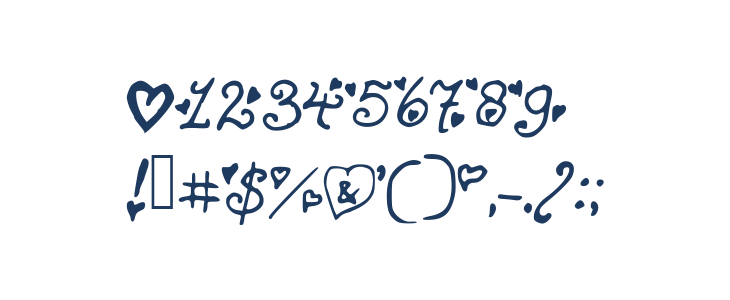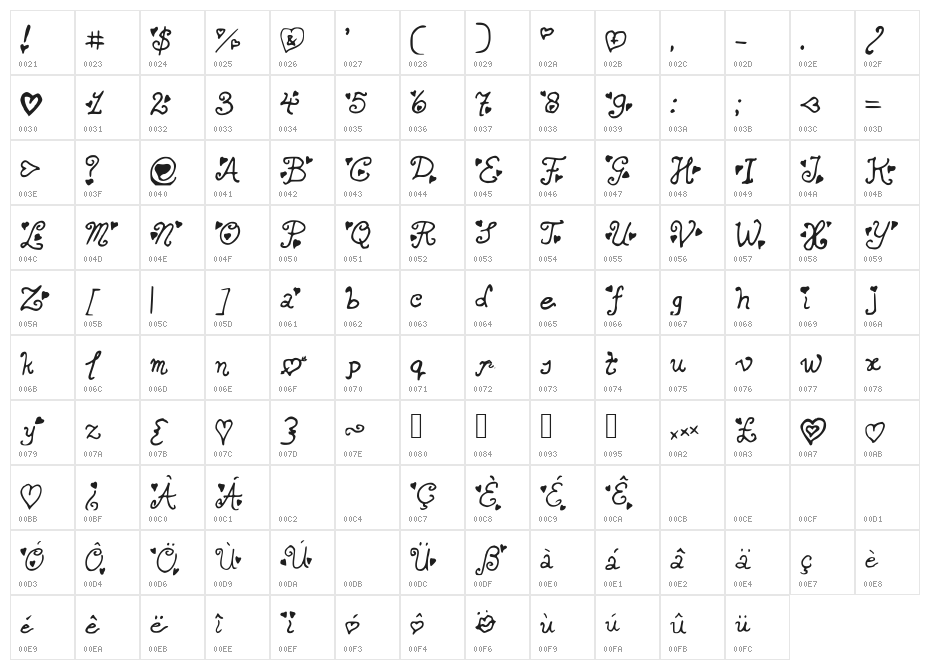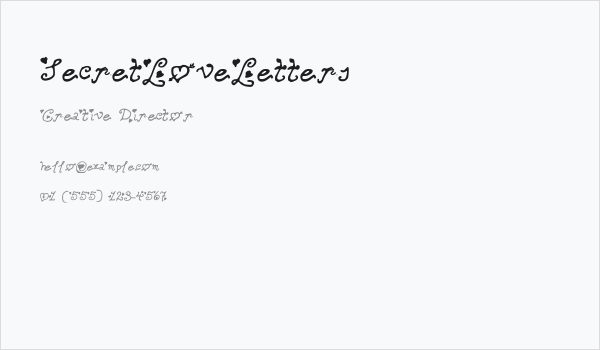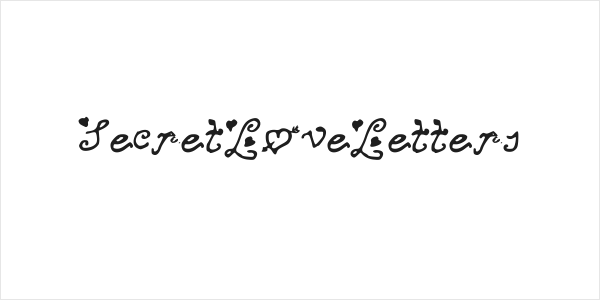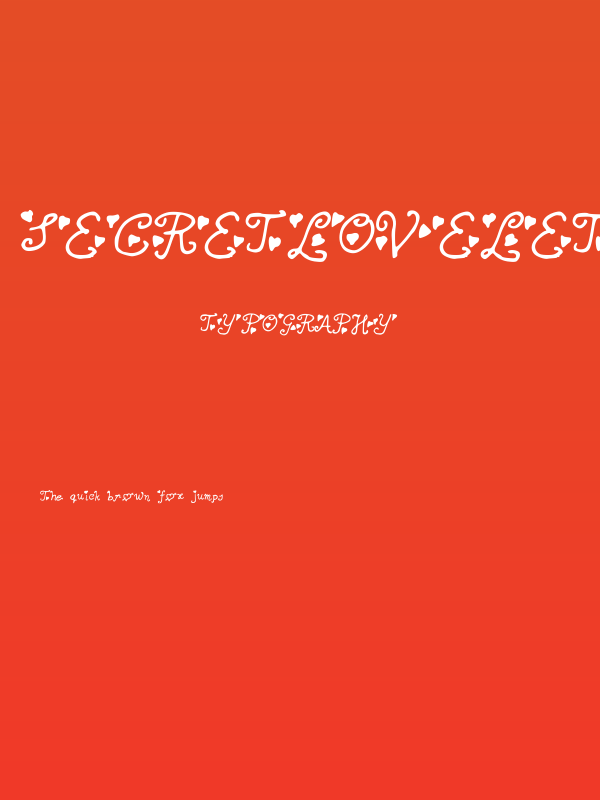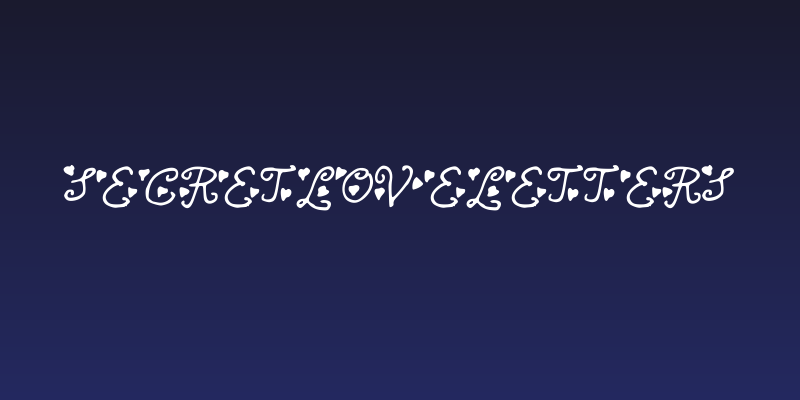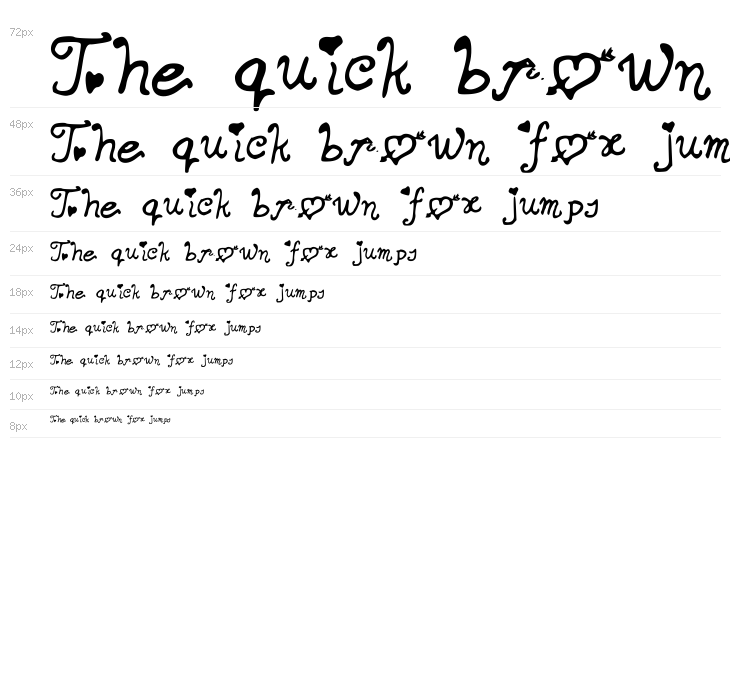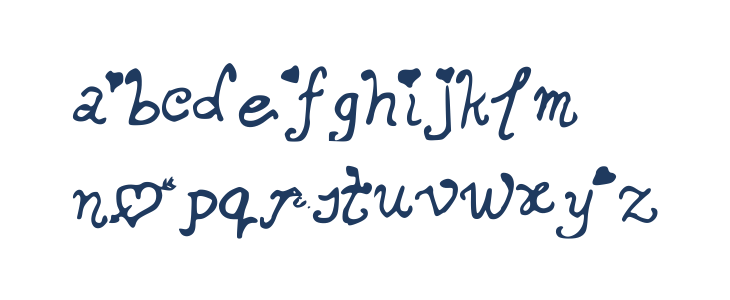
SecretLoveLetters Font
SecretLoveLetters Description
This whimsical and romantic font features playful heart motifs integrated into each character, creating a charming and affectionate appearance. The letters are crafted with a handwritten style, giving them a personal and intimate feel. The uppercase letters are bold and decorative, with hearts adorning the ends of strokes, while the lowercase letters maintain a more fluid and cursive form. Numbers and special characters continue the theme, incorporating hearts in creative ways. This font is perfect for projects that require a touch of romance and creativity, such as wedding invitations, love letters, or Valentine's Day promotions. Its unique style makes it stand out, adding a delightful and loving touch to any design.
| Overall Style | Romantic, Whimsical |
| Proposed Projects | Ideal for wedding invitations, love letters, Valentine's Day cards, and romantic branding. |